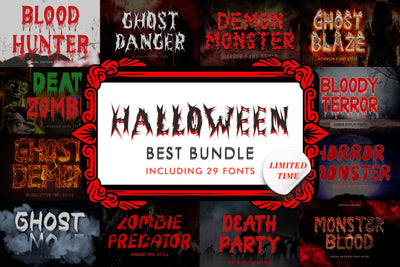
Halloween Best Bundle
This set includes 29 scary and popular fonts halloween !!!
- Halloween Party
- Scary Light
- Death Party
- Monster Blood
- Witch Pumpkin
- Devil Scream
- Goblin Monster
- Remuk
- Devil Story
- Bloody Terror
- Zombie Predator
- Ghost Festival
- Death Demon
- Halloween Devil
- Horror Monster
- Ghost Skeleton
- Black Combat
- Ghost Battle
- Death Prison
- Blood Hunter
- Ghost Smoke
- Ghost Bomber
- Demon Monster
- Ghost Blaze
- Death Zombie
- Death Spider
- Spooky Bat
- Ghost Demon
- Ghost Danger